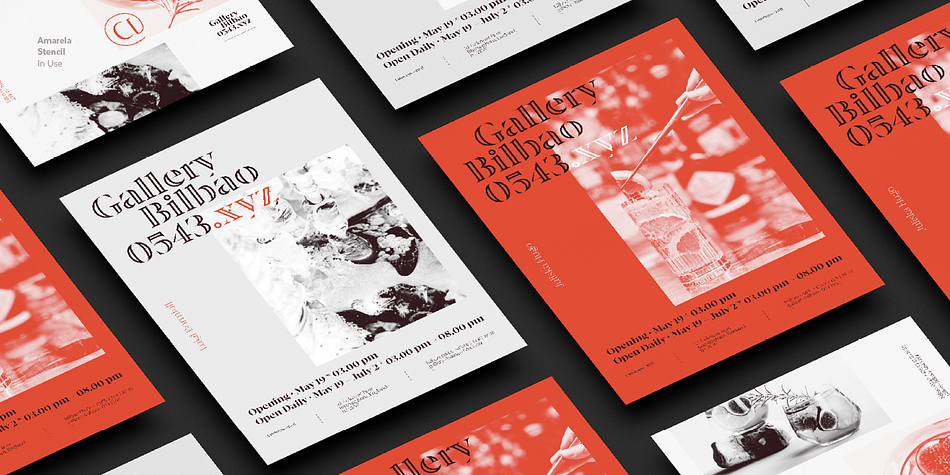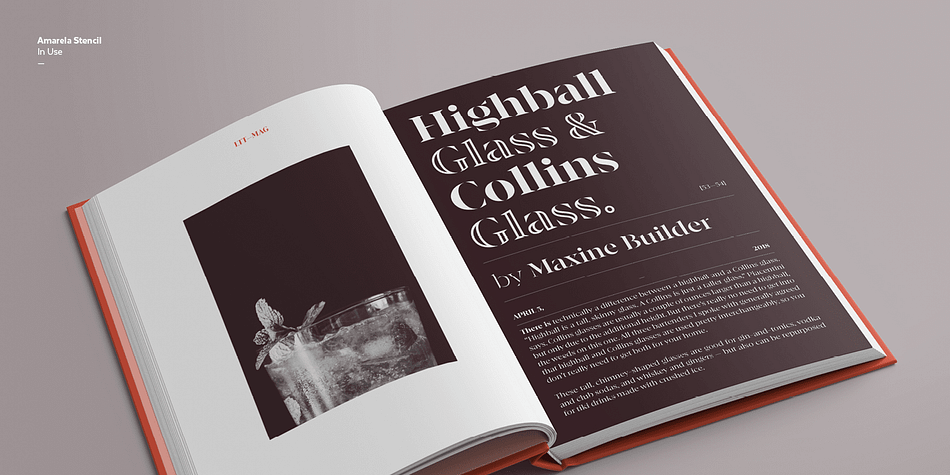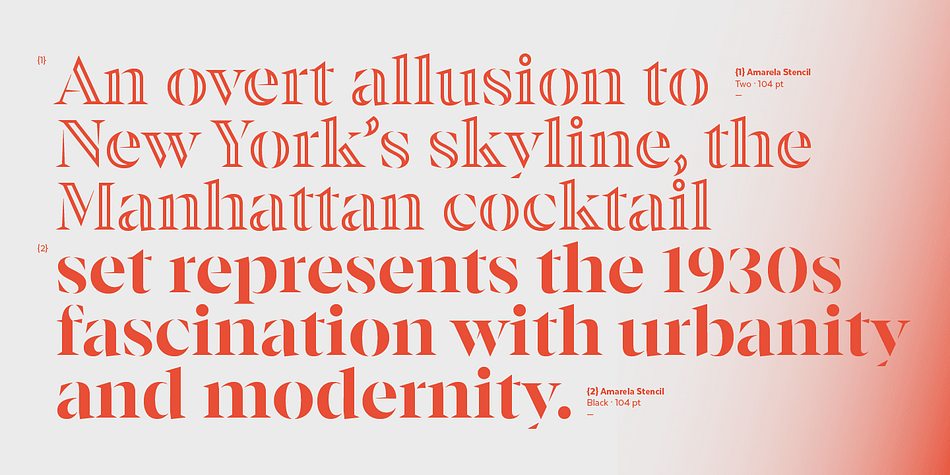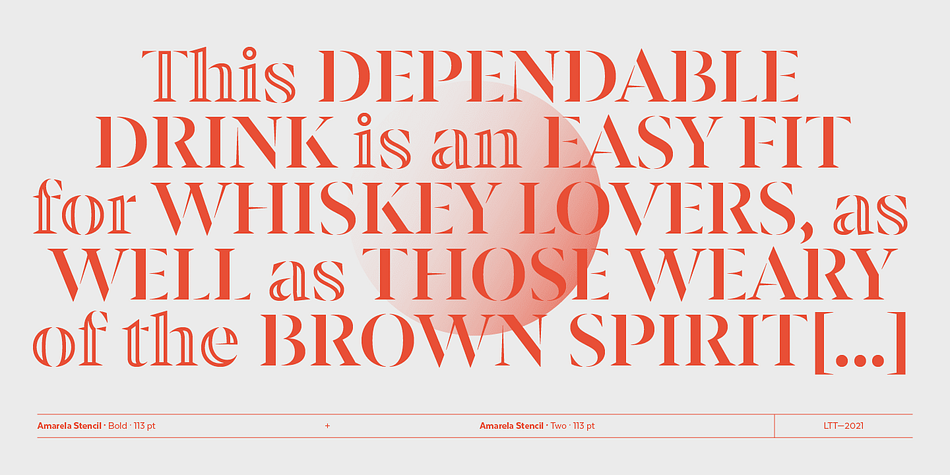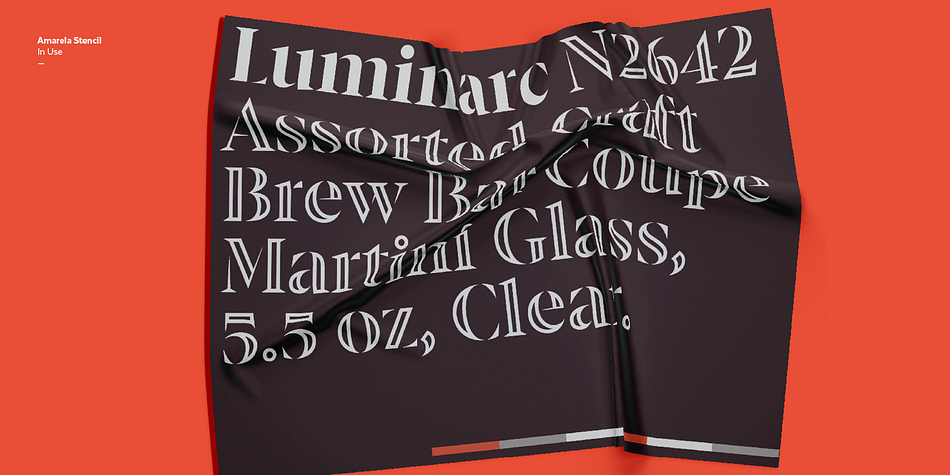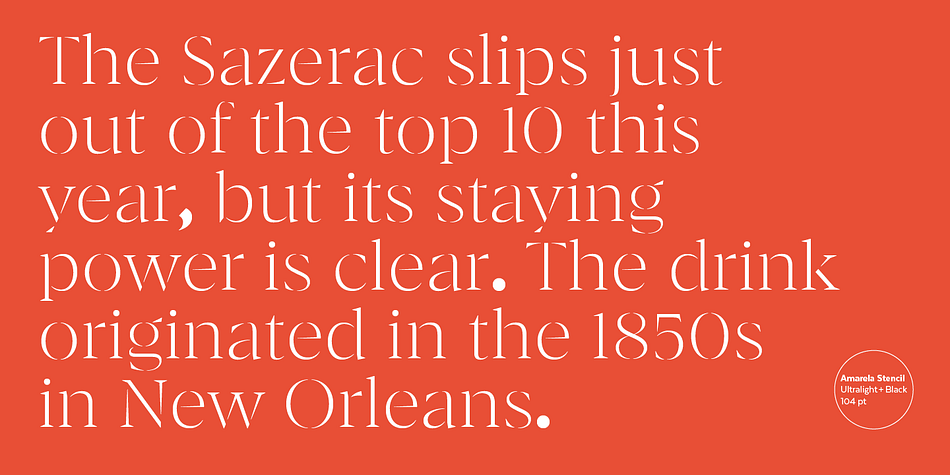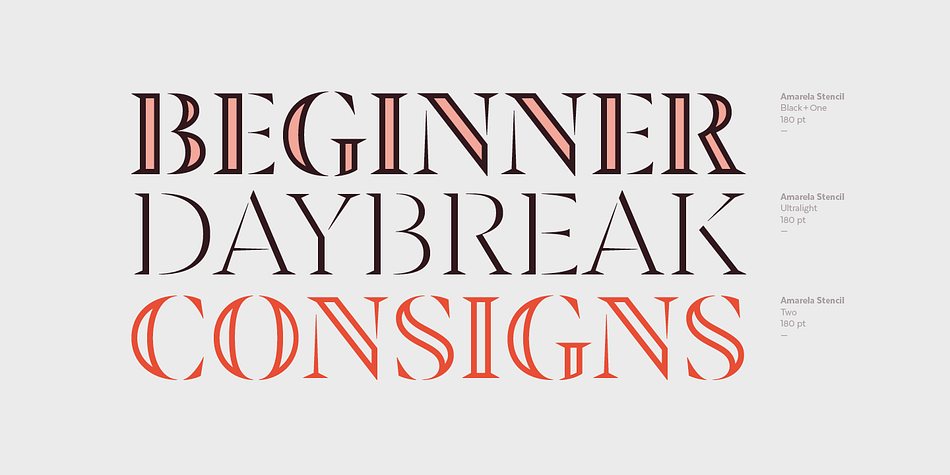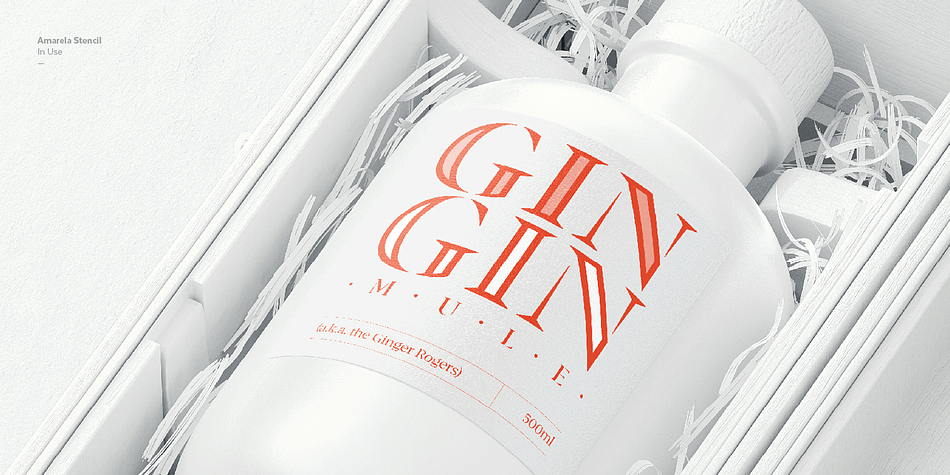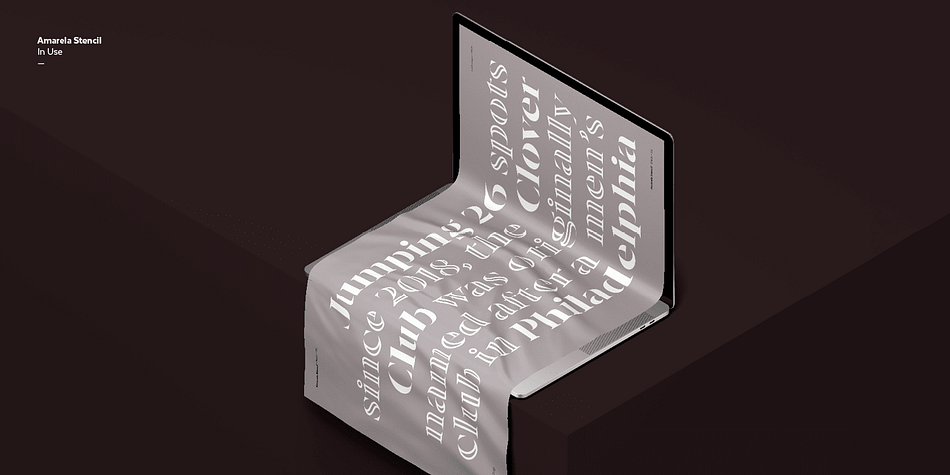
Designed by Sofia Mohr, Amarela Stencil is a display serif and stencil font family. This typeface has seven styles and was published by Latinotype.
Amarela Stencil is a contemporary typeface, specially designed for titles, packaging and branding. Sharp serifs and an extreme stroke contrast give the font a classy look and a strong personality.
Amarela Stencil comes in 5 weights, ranging from Ultralight to Black, plus two decorative styles- One and Two.
Styles | Display Serif, Stencil |
Designer | Sofia Mohr |